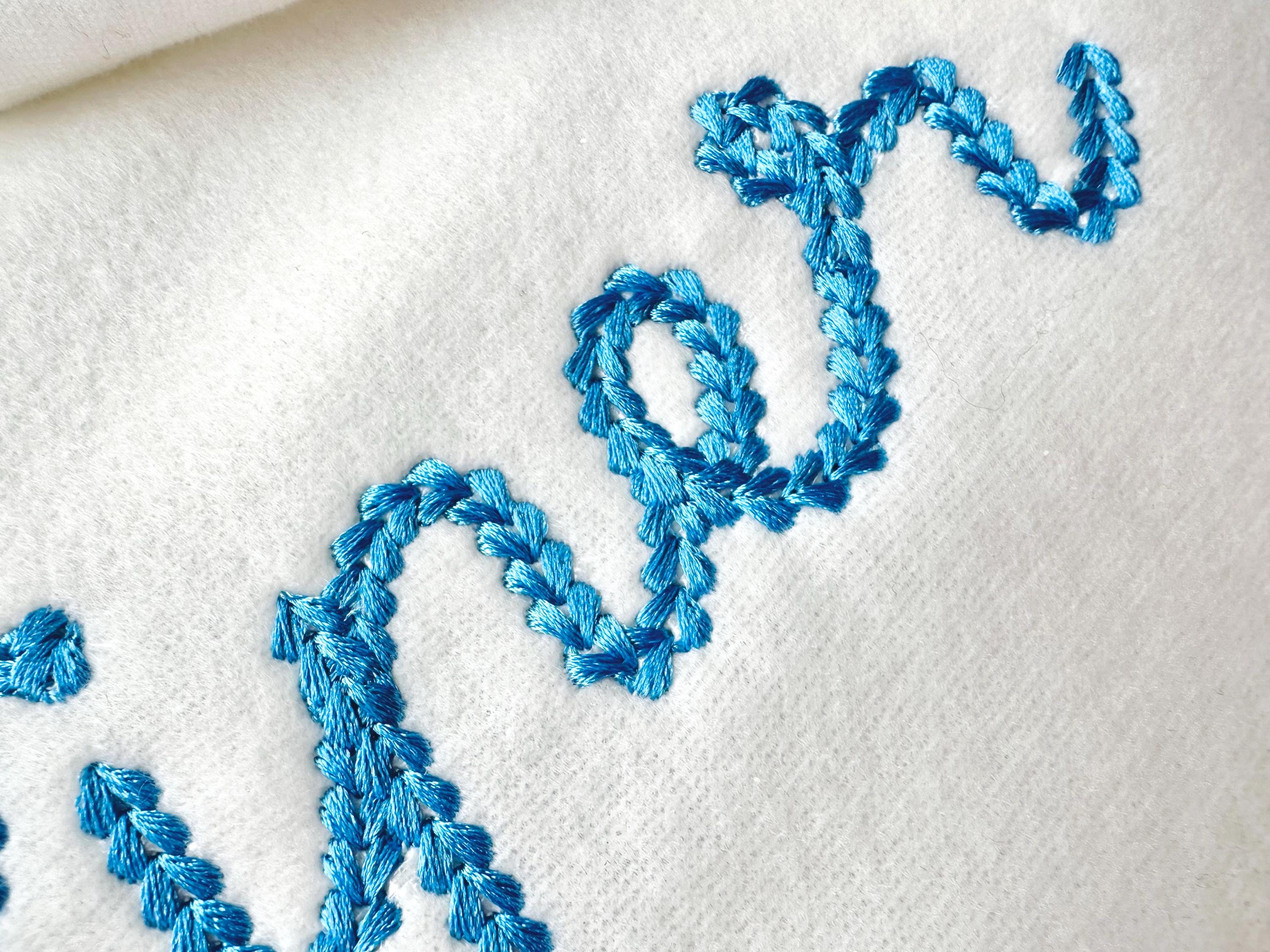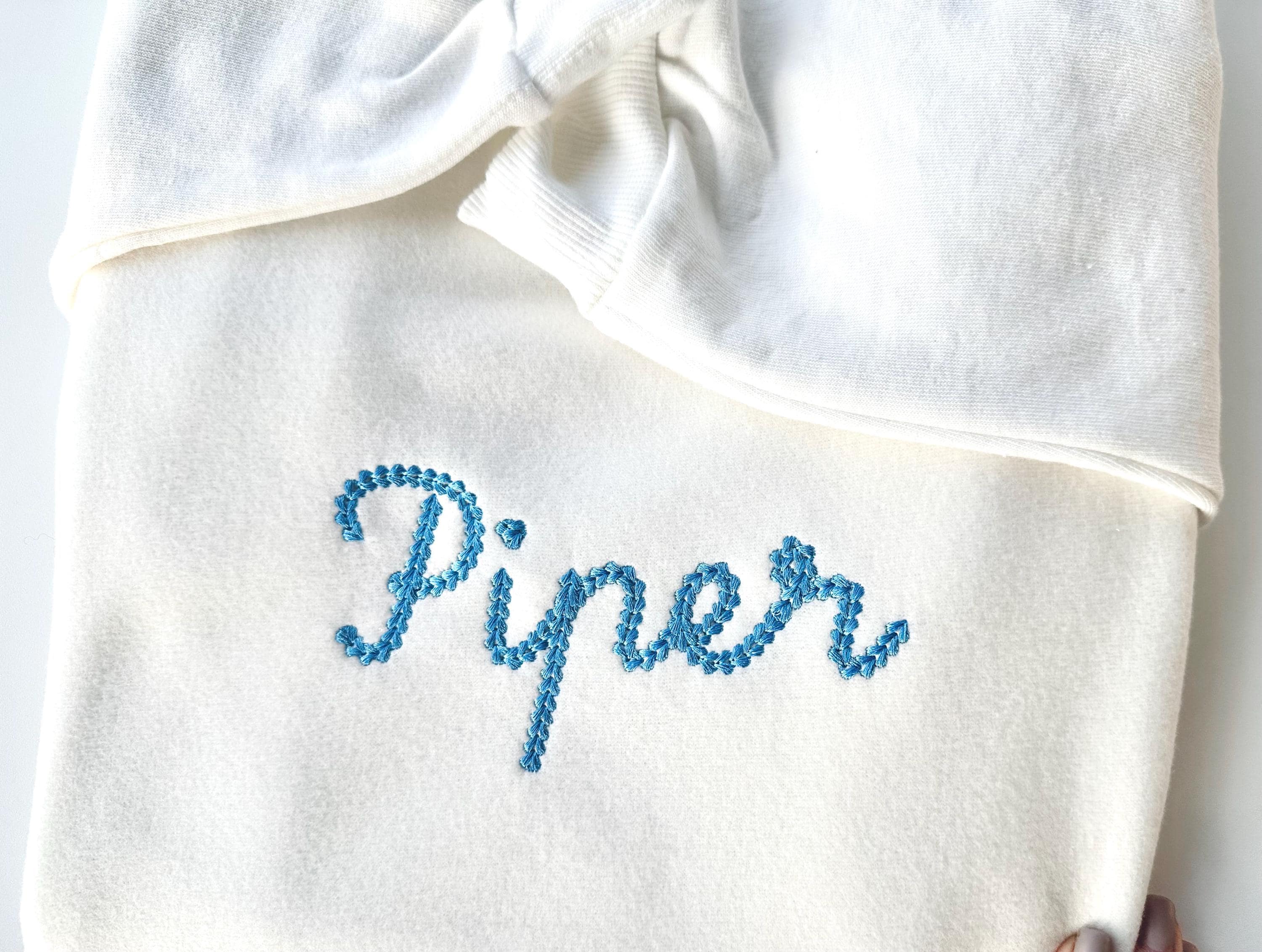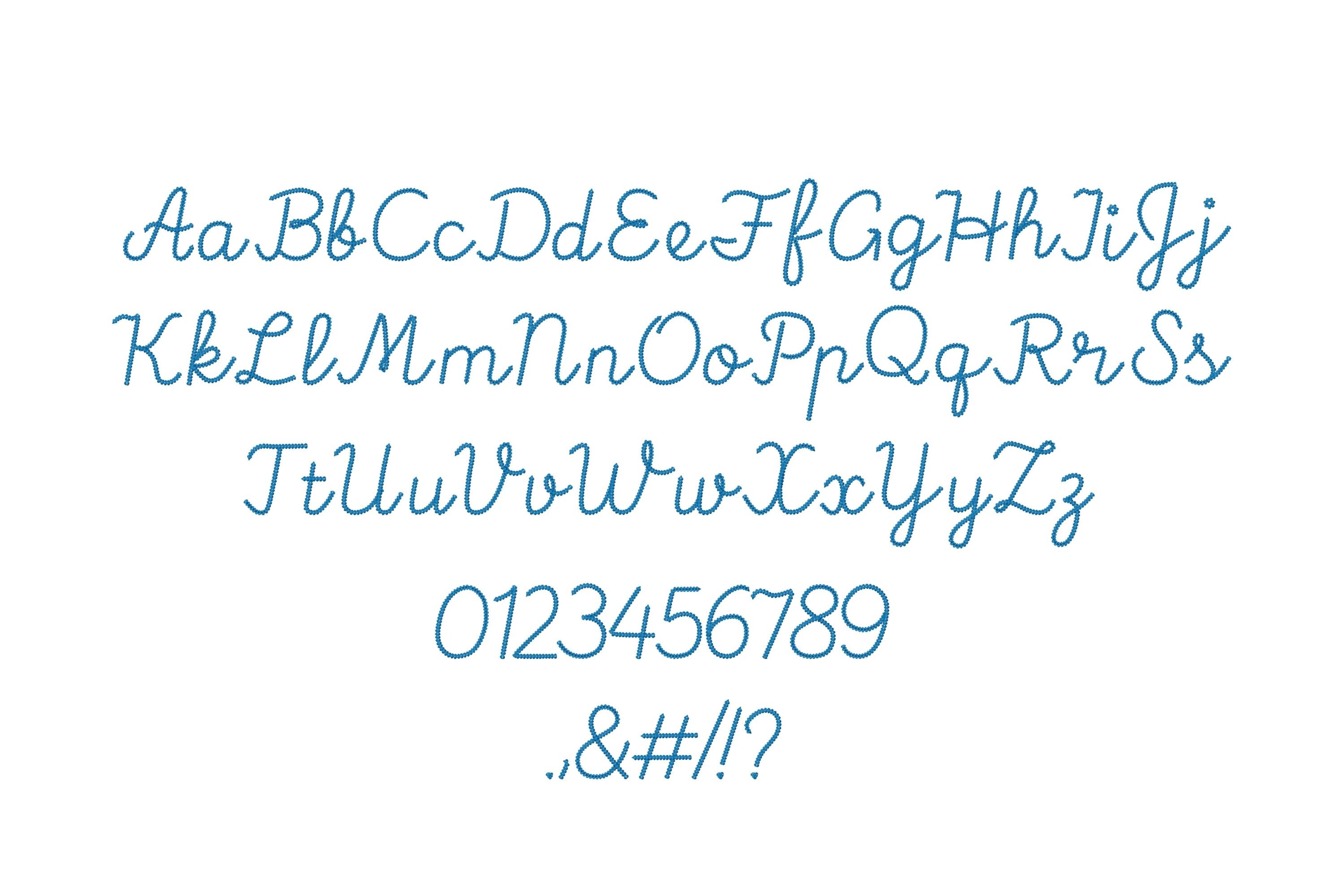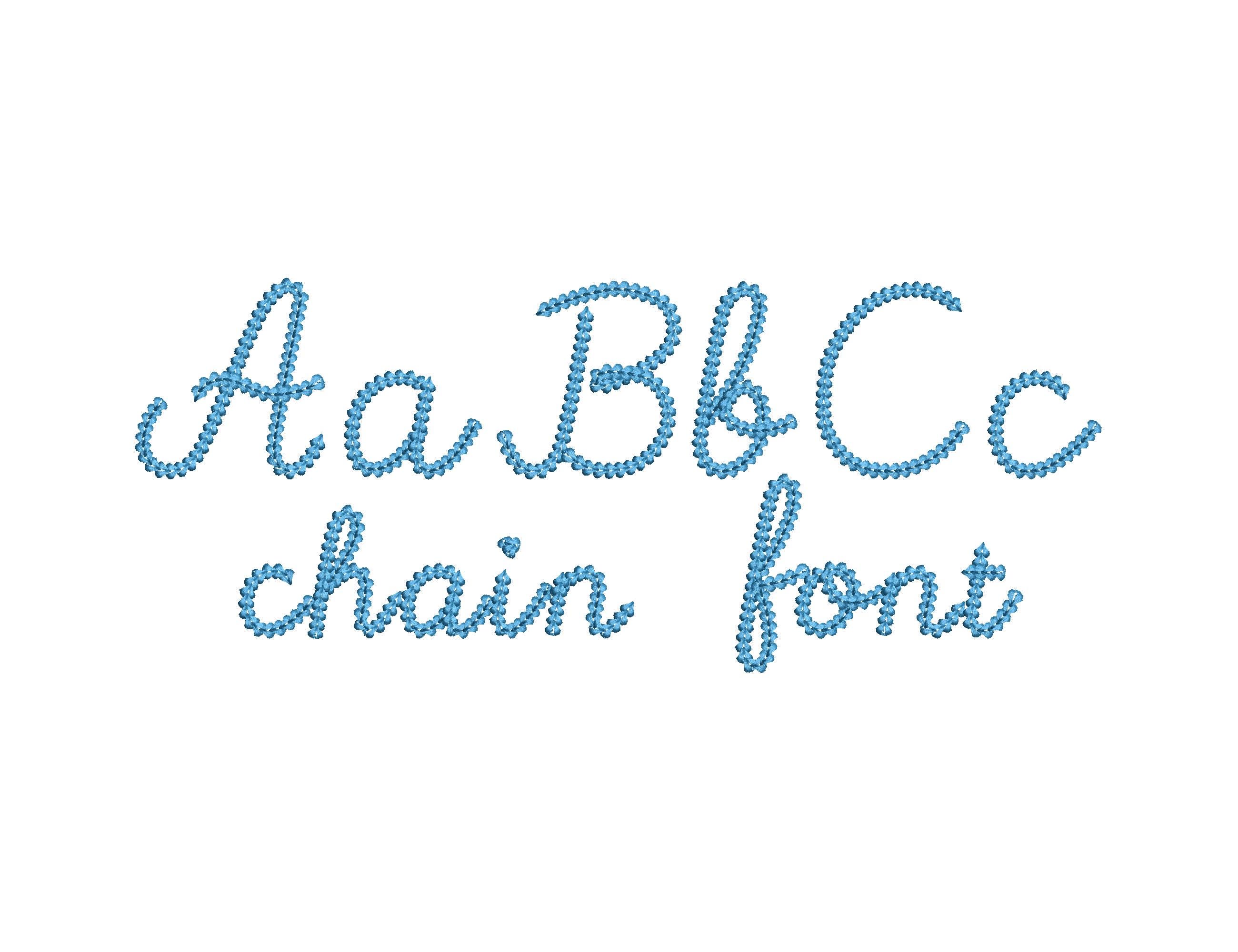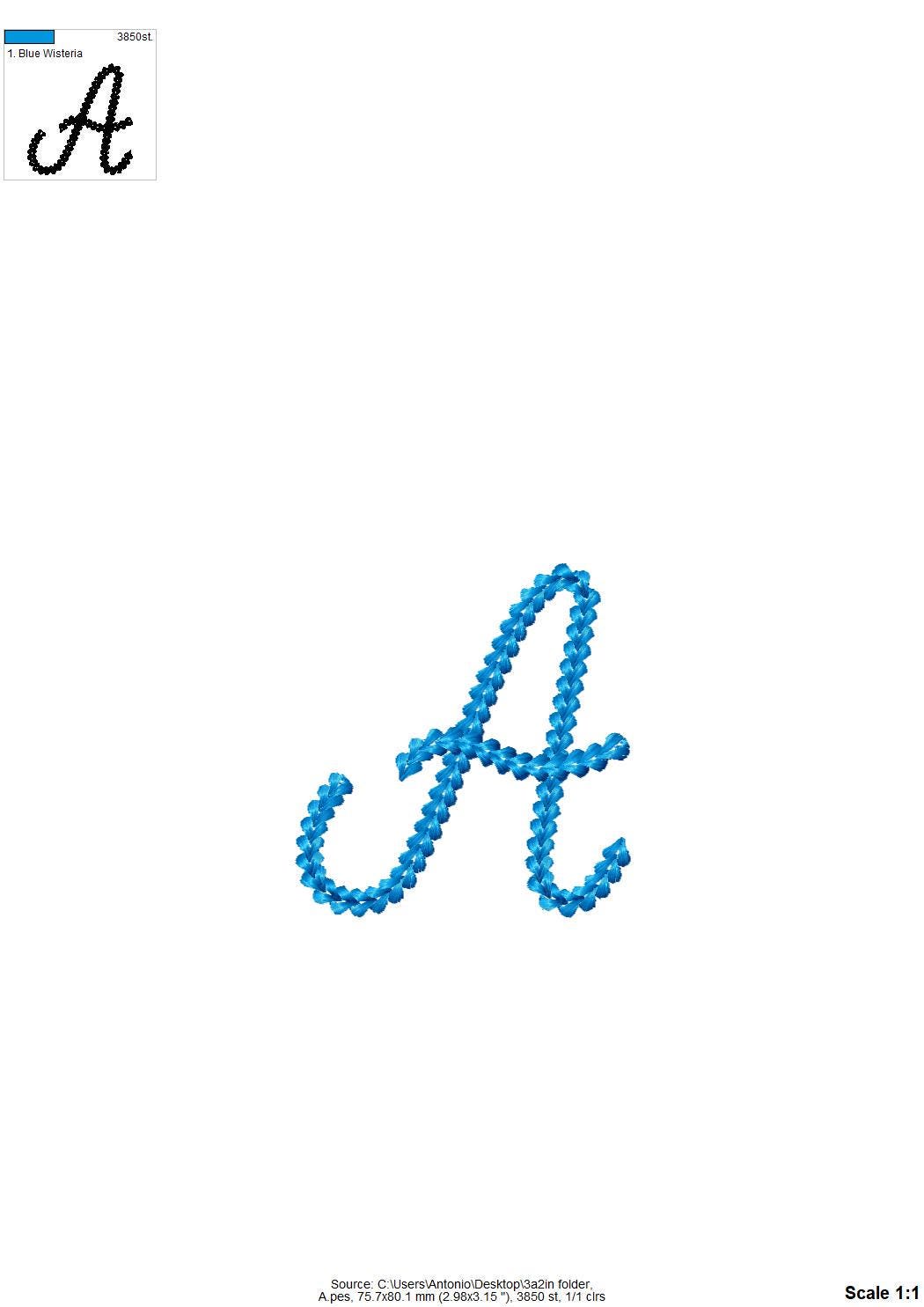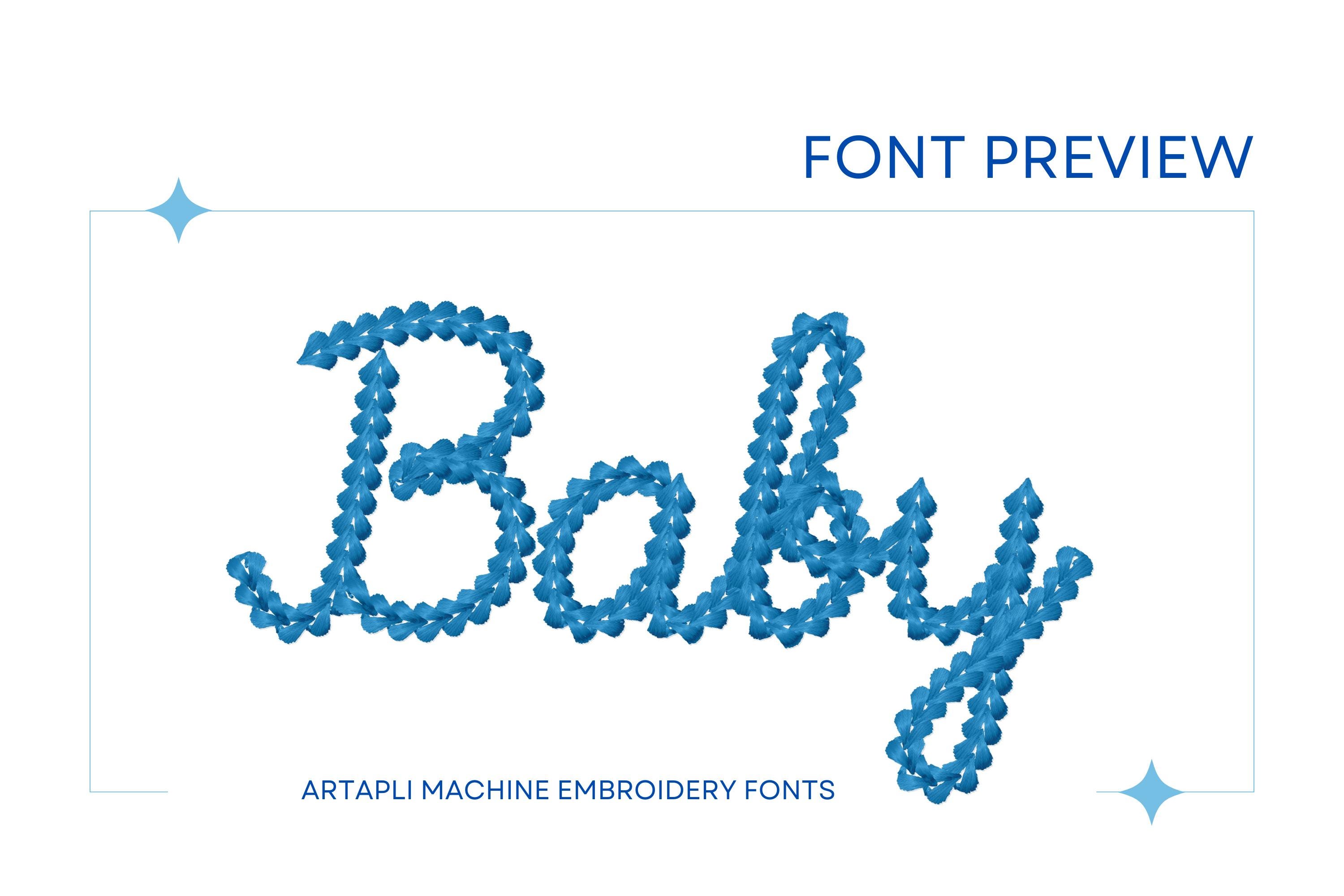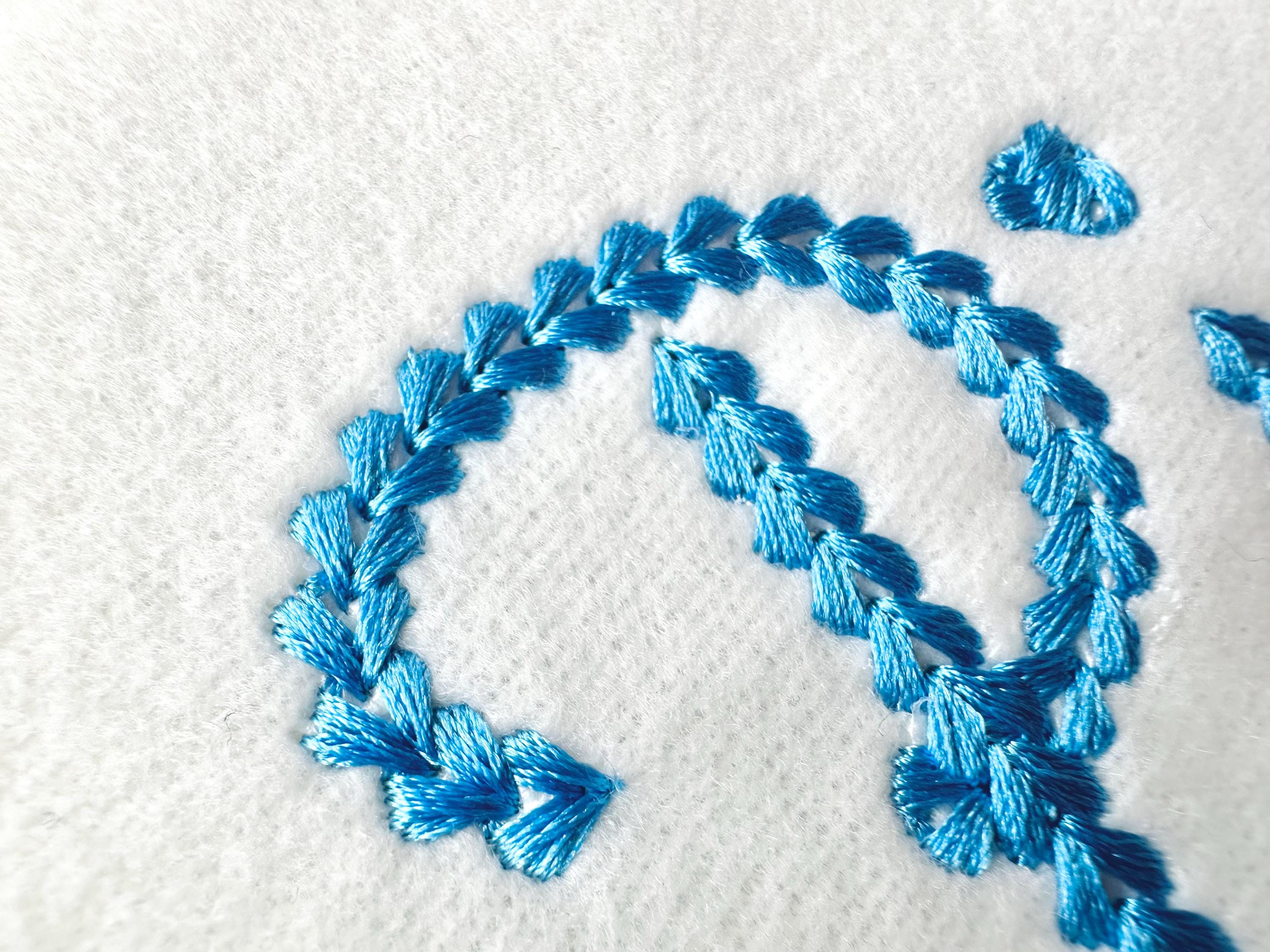
Extra Bold Chain stitch FONT Baby Gown handwritten script alphabet machine embroidery designs monogram knit effect sizes 1.7 up to 3.7 inch
Entire alphabet A-Z uppercase and lowercase letters, numbers 0-9, and punctuation.